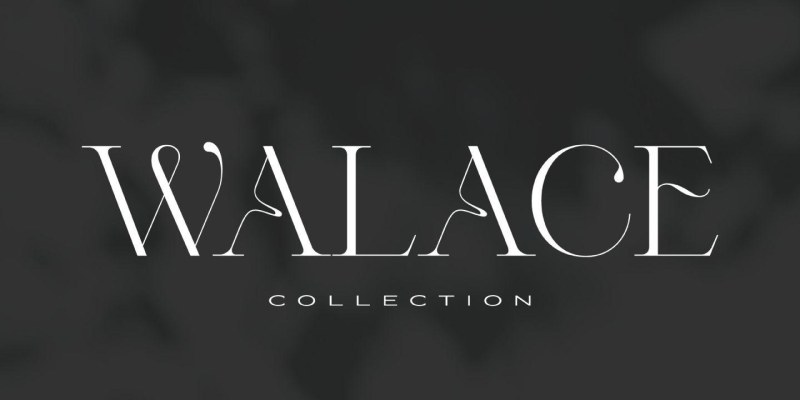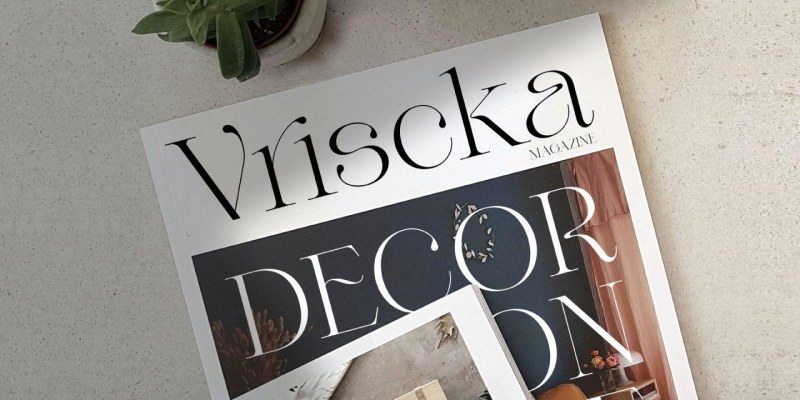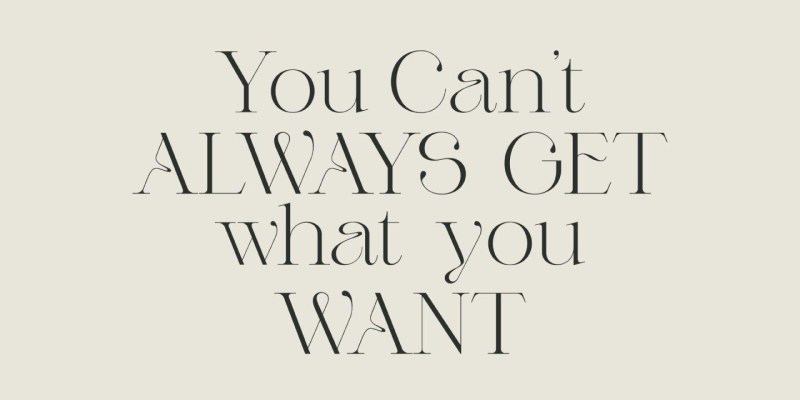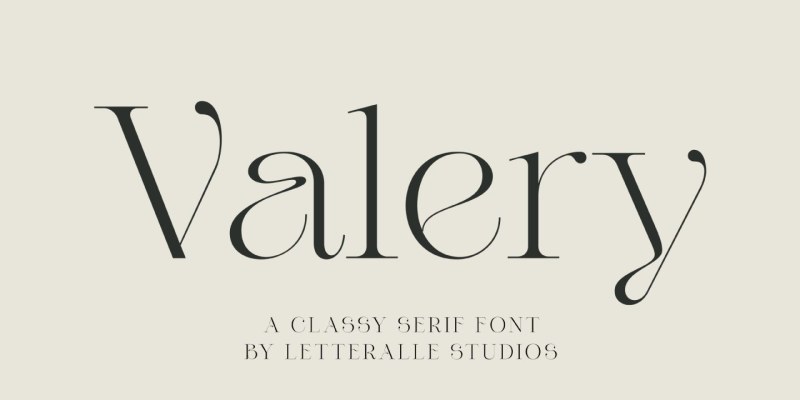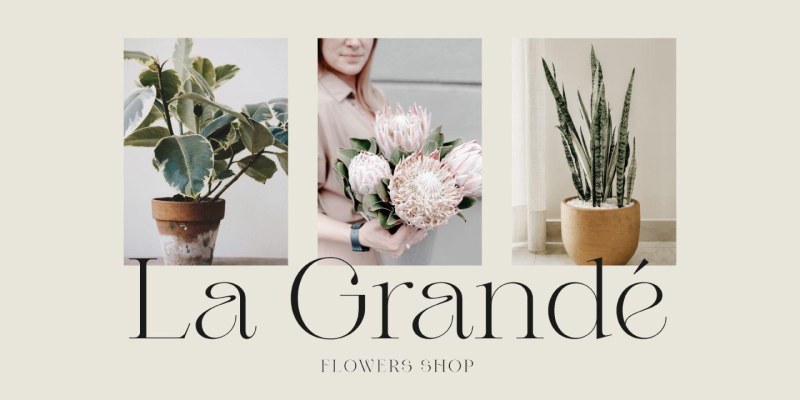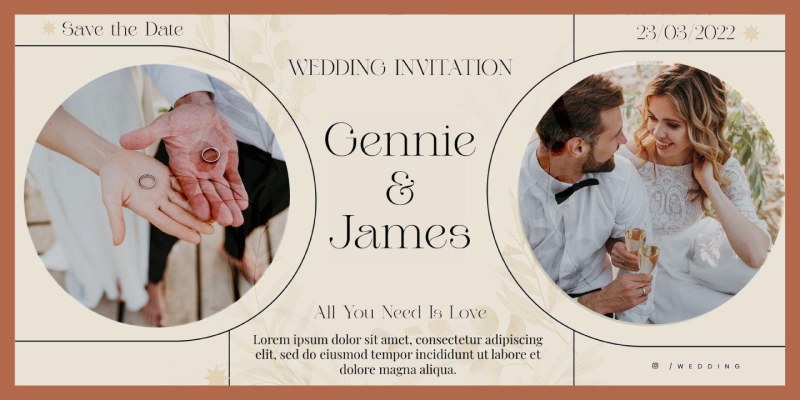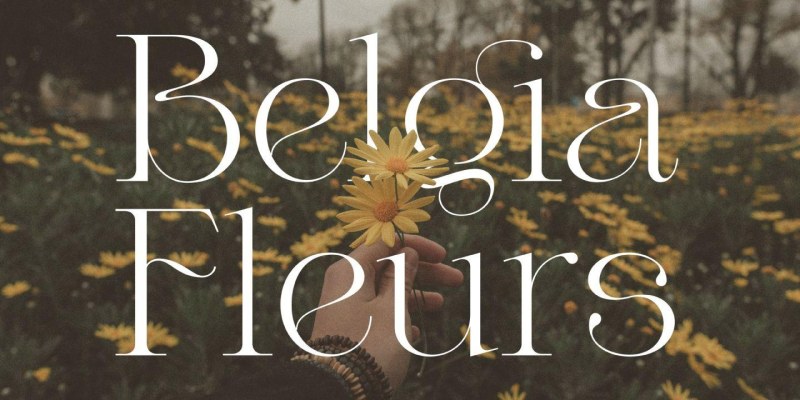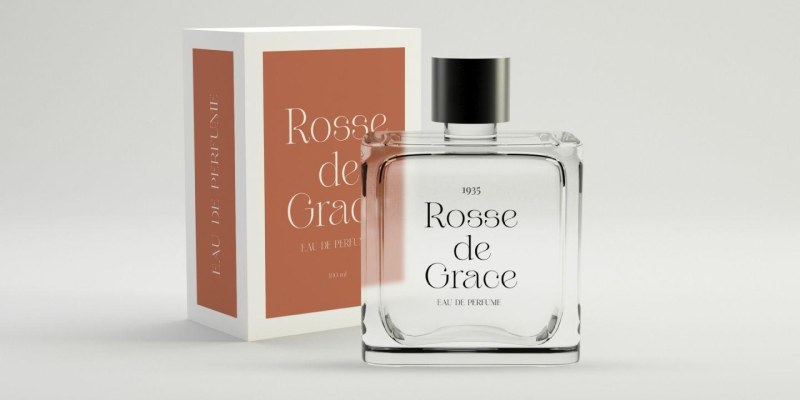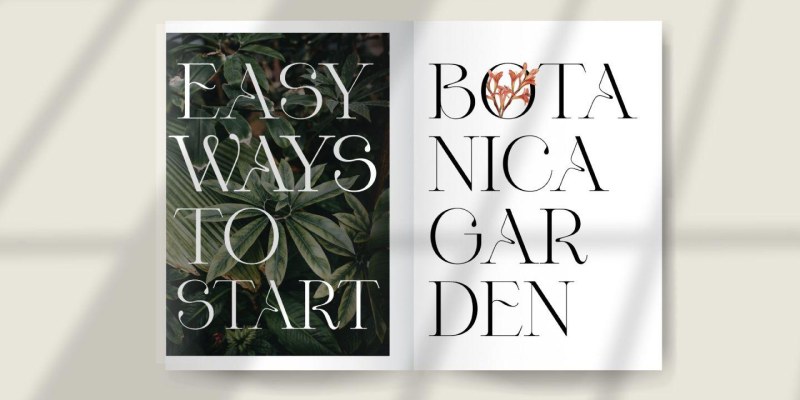
Valery Font
Introducing, Valery! a serif display font with a modern yet luxurious style. Aesthetic and unique letterforms, as well as soft curves are the hallmark of this font. Valery is a versatile and multigender font. Perfect for editorial projects, Logo design, Wedding, Clothing Branding, product packaging, magazine headers, or simply as a stylish text overlay to any background image.
Where Valery Font works best
Valery Font gives long-form text a classic, trustworthy rhythm — ideal for magazine spreads, annual reports and book interiors.
Pair Valery Font with generous letter-spacing for wordmarks in fashion, hospitality, wine and jewellery branding.